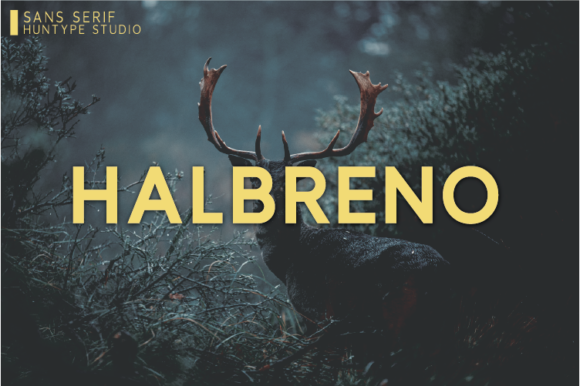
The Perfect Pair: How the Right Font Can Elevate Your Design
Remember that moment when you stumbled upon a font that made your design shine? For me, it was a simple yet bold sans-serif font that instantly elevated my project’s aesthetic. It’s those ‘aha’ moments that make all the difference in our creative journey.
Meet the Halbreno Font – a beautiful, thick-lettered sans-serif font designed specifically for logos, branding, and web headings. Its simplicity and boldness make it an excellent addition to any design project. What sets Halbreno apart is its versatility and ability to effortlessly add a professional touch to your work. As a designer, you know the value of having the right tools at your disposal – and the Halbreno Font is definitely one to add to your arsenal.
Halbreno Font Key Features
- Font Style: Halbreno Font is a modern sans-serif font designed for digital use. It features clean lines, geometric shapes, and a highly legible character set.
- Language Support: The font includes a wide range of language support, including Latin, Cyrillic, and Greek alphabets, making it suitable for use in multilingual projects.
- Unique Characteristics: Halbreno Font features a unique blend of geometric and organic shapes, resulting in a distinctive and highly recognizable visual identity.
- Font Weight and Variants: The font family includes multiple weights, from Light to Bold, as well as italic and condensed variants, providing designers with a versatile range of options for various design applications.
Halbreno Font Review
As a designer, I was excited to try out the Halbreno Font, and I must say, it has its strengths and weaknesses. Let’s dive in and see what I think.
- The Halbreno Font has a unique, modern design that sets it apart from other fonts. It’s perfect for anyone looking to add a touch of sophistication to their project.
- The font is highly legible, even at smaller font sizes, making it ideal for body text and other content that requires a lot of reading.
- The font family is quite extensive, offering a range of weights and styles to suit different design needs.
- One of the major drawbacks of the Halbreno Font is its limited support for non-Latin scripts. If you need to work with languages like Arabic or Chinese, you may need to look elsewhere.
- The font can look a bit dated in certain contexts, particularly when used in combination with other modern design elements.
- The font’s unique design can also be a bit overwhelming if used extensively, so it’s best to use it sparingly to avoid visual fatigue.
Overall, the Halbreno Font is a solid choice for designers looking for a modern, legible font. While it has its limitations, it’s a great option for projects that require a touch of sophistication and elegance. With some careful consideration of its strengths and weaknesses, you can create stunning designs that showcase the best of this font.
Halbreno font is ideal for creative and modern designs. Use it for headings, titles, or body text in projects like:
– Brochures and flyers
– Branding and identity materials
– Digital and print advertisements
Q: Is the Halbreno Font available in different font weights and styles?
Yes, the Halbreno Font is available in various weights, including light, regular, medium, bold, and black. It also includes italic and oblique styles for added flexibility. You can use the font’s OpenType features to create custom font weights and styles, or use CSS font properties to customize the font’s appearance in web design